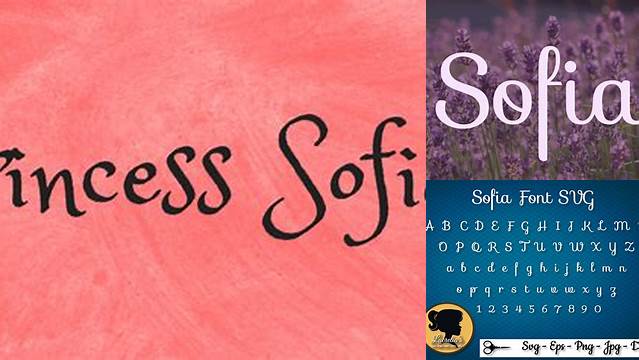
Sofia Font: Linking Google Fonts Stylesheet Guide
Sofia Font Overview
The Sofia font is a beautiful, cursive typeface that adds a touch of elegance to any website. It's perfect for headings, logos, and any other place where you want to make a statement. Using the Sofia font can instantly elevate the look and feel of your site. The Sofia font, with its flowing lines and graceful curves, stands out as a fantastic choice for adding a touch of sophistication to your web projects. It’s one of those fonts that just exudes class and style. Imagine using it for the main headings on your website – it immediately grabs attention and sets a tone of elegance. Or perhaps you want to create a unique logo? Sofia could be the perfect fit. But it's not just about looks; it's also about versatility. While Sofia shines in display settings like headings and logos, it can also be used sparingly in body text to add a touch of flair. Just be careful not to overdo it, as its cursive nature might become tiring for large blocks of text. Think of Sofia as the perfect accessory for your website – a little goes a long way in making a big impact. Whether you're designing a wedding invitation, a blog header, or a company logo, Sofia is a font that deserves a place in your toolkit. Trust me, guys, you'll love it!